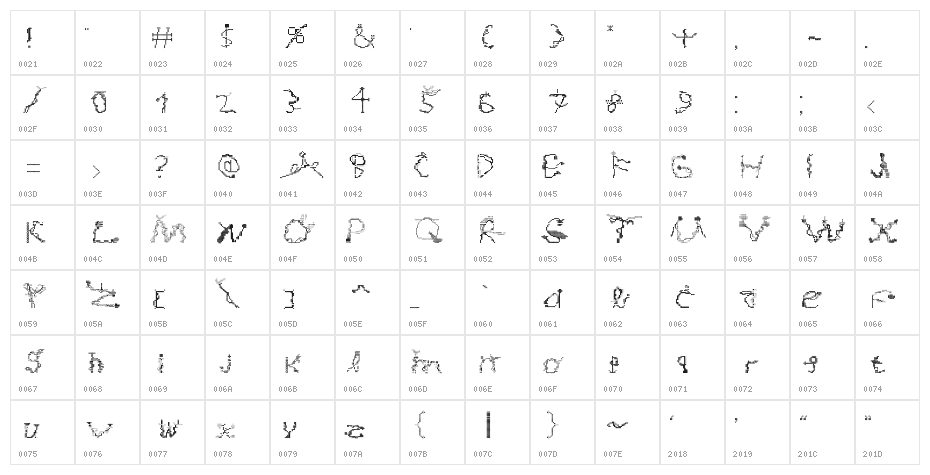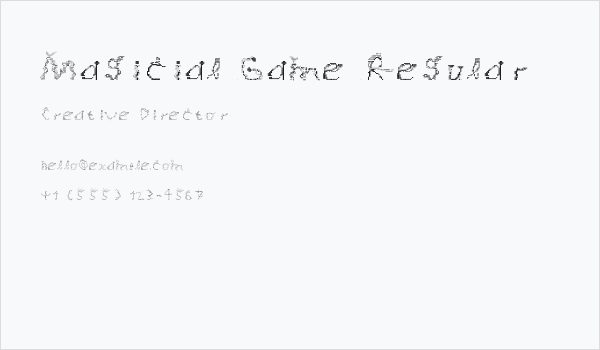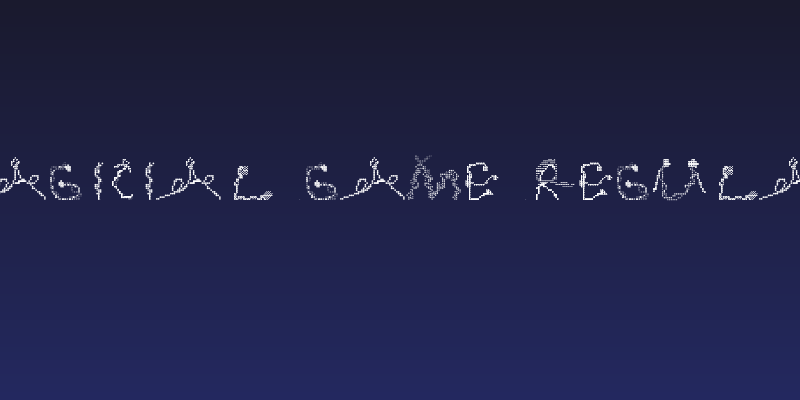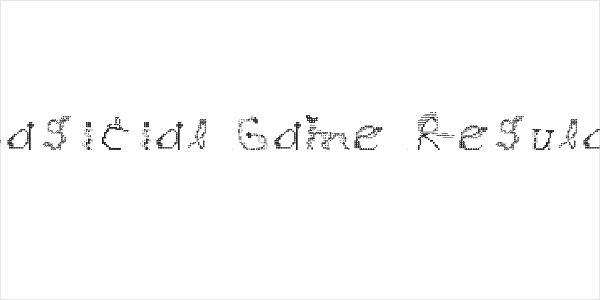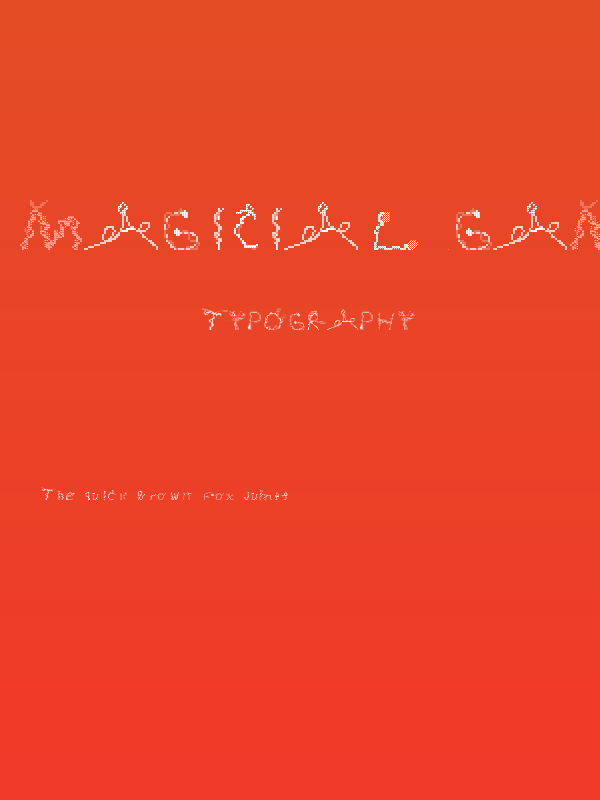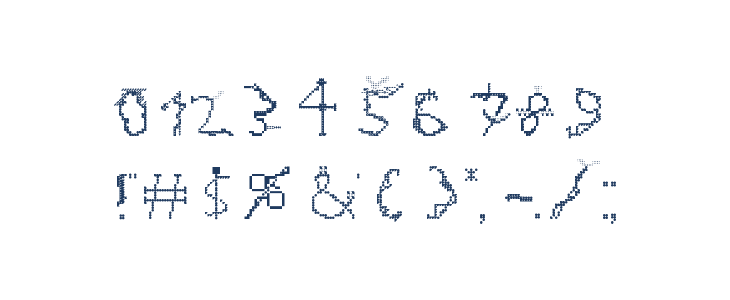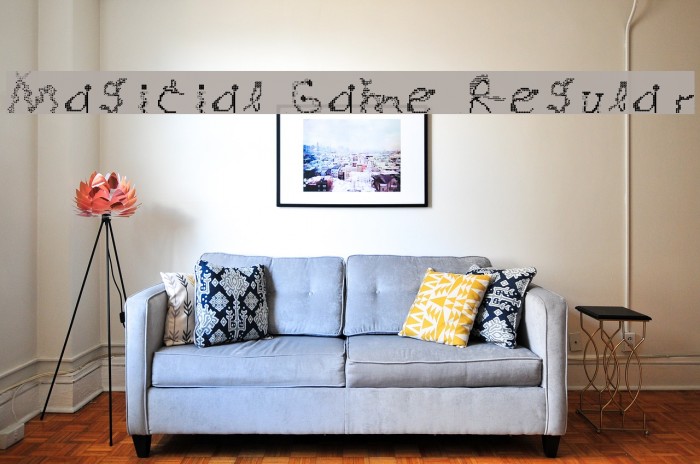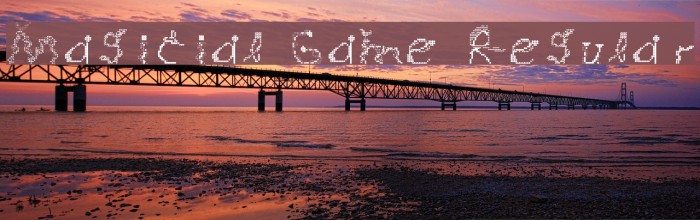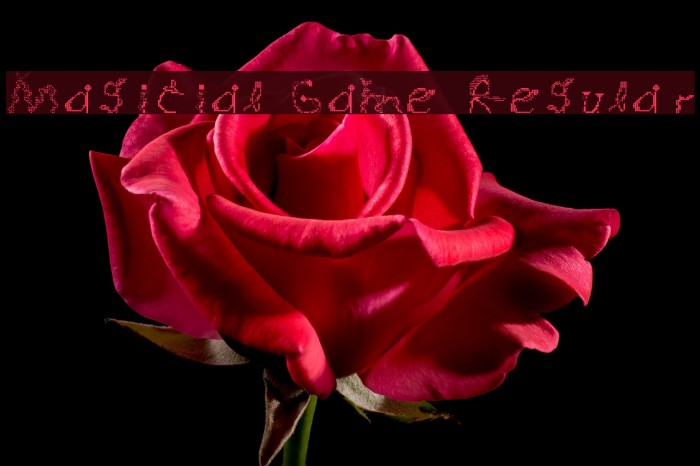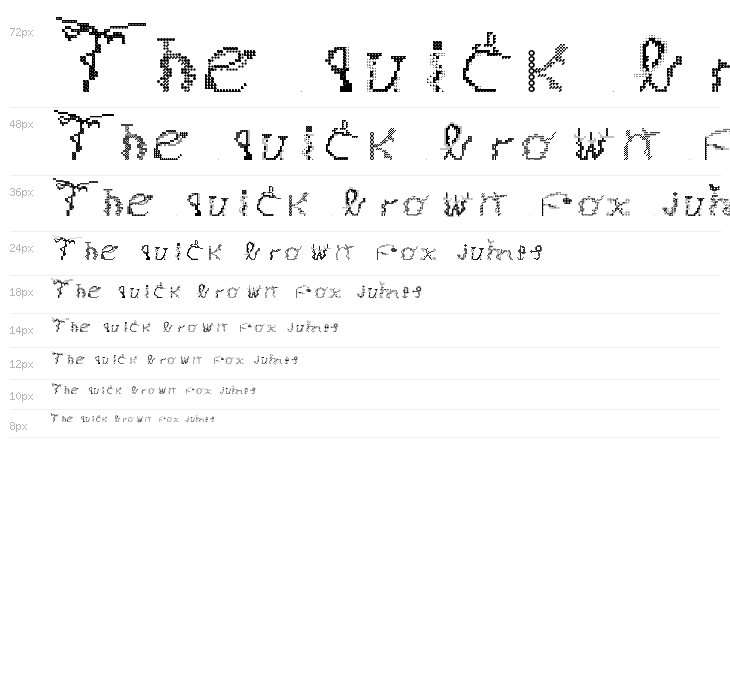
Magicial Game Regular Font
Magicial Game Regular Description
This font features a whimsical and playful design, reminiscent of magical or fantasy themes. Each character is uniquely crafted with irregular strokes and a hand-drawn appearance, giving it a lively and dynamic feel. The uppercase letters are bold and distinctive, with varying line thicknesses that add to the font's charm. Lowercase letters maintain the playful style, with some characters featuring loops and swirls. Numbers and special characters are equally imaginative, incorporating the same magical elements. The overall design is perfect for projects that require a touch of fantasy or creativity.
| Proposed Projects | Ideal for fantasy-themed games, children's books, creative posters, and whimsical branding. |